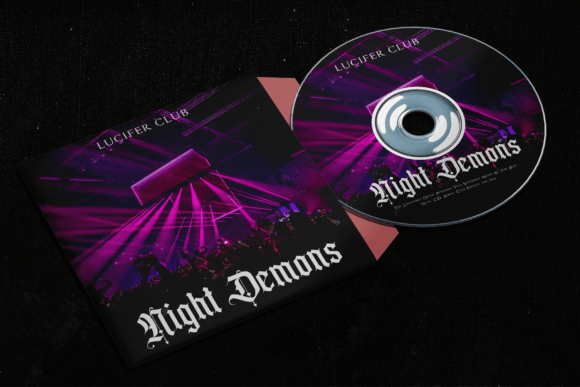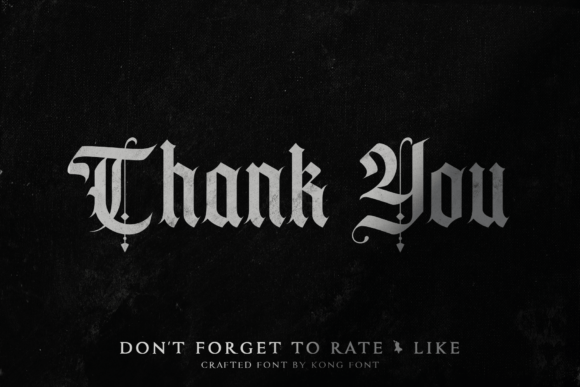
Introducing California Sun: The Modern Blackletter Font for Crafters and Designers
In the world of design, fonts play a crucial role in conveying messages, evoking emotions, and capturing attention. For crafters and designers, having access to a diverse library of high-quality fonts is essential for creating stunning visual content. If you’re looking for a modern and beautiful blackletter font to elevate your designs, look no further than California Sun.
What is California Sun?
California Sun is a contemporary blackletter font that exudes elegance and sophistication. Its unique design combines traditional blackletter elements with a modern twist, making it perfect for crafters and designers who want to add a touch of glamour to their work. Whether you’re creating invitations, greeting cards, posters, or social media graphics, California Sun is sure to make your designs stand out.
Key Features of California Sun
- Modern Blackletter Design: California Sun boasts a fresh and modern take on traditional blackletter fonts, making it perfect for designers who want to create unique and eye-catching content.
- High-Quality Typography: California Sun features crisp, clear lines and precise typography, making it ideal for both digital and print applications.
- Elegant and Versatile: With its elegant design and versatile style, California Sun can be used for a wide range of creative projects, from formal invitations to social media graphics.
Benefits for Crafters and Designers
California Sun offers numerous benefits for crafters and designers, including:
- Enhanced Creativity: With California Sun, you can add a touch of sophistication and elegance to your designs, taking your creativity to the next level.
- Professional-Grade Results: California Sun’s high-quality typography and modern design ensure professional-grade results that will impress your audience.
- California Sun is a modern blackletter font perfect for crafters and designers.
- California Sun features elegant and versatile design, high-quality typography, and wide compatibility.
- This font is ideal for creating stunning visual content, from invitations to social media graphics.